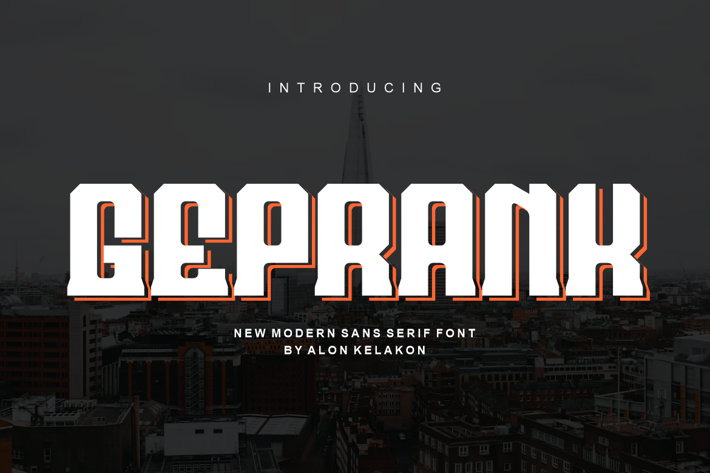
Geprank Font
GEPRANK is a bold, modern display font with a strong, industrial feel. Its sharp angles and structured letterforms make a powerful statement, perfect for grabbing attention and conveying confidence.
This sans-serif typeface is ideal for:
+ Logos and Branding: Create a memorable and impactful brand identity.
+ Headlines and Titles: Make your message stand out in posters, flyers, and digital ads.
+ Gaming and Tech: The futuristic, mechanical vibe is great for video games, software interfaces, and tech company branding.
+ Sports and Automotive: The strong, dynamic look works well for sports apparel, team logos, and car-related designs.
With its full set of uppercase and lowercase letters, numerals, and essential punctuation, GEPRANK provides the versatility you need to create a wide range of striking designs. It's a must-have for designers looking to add a powerful, modern edge to their projects.